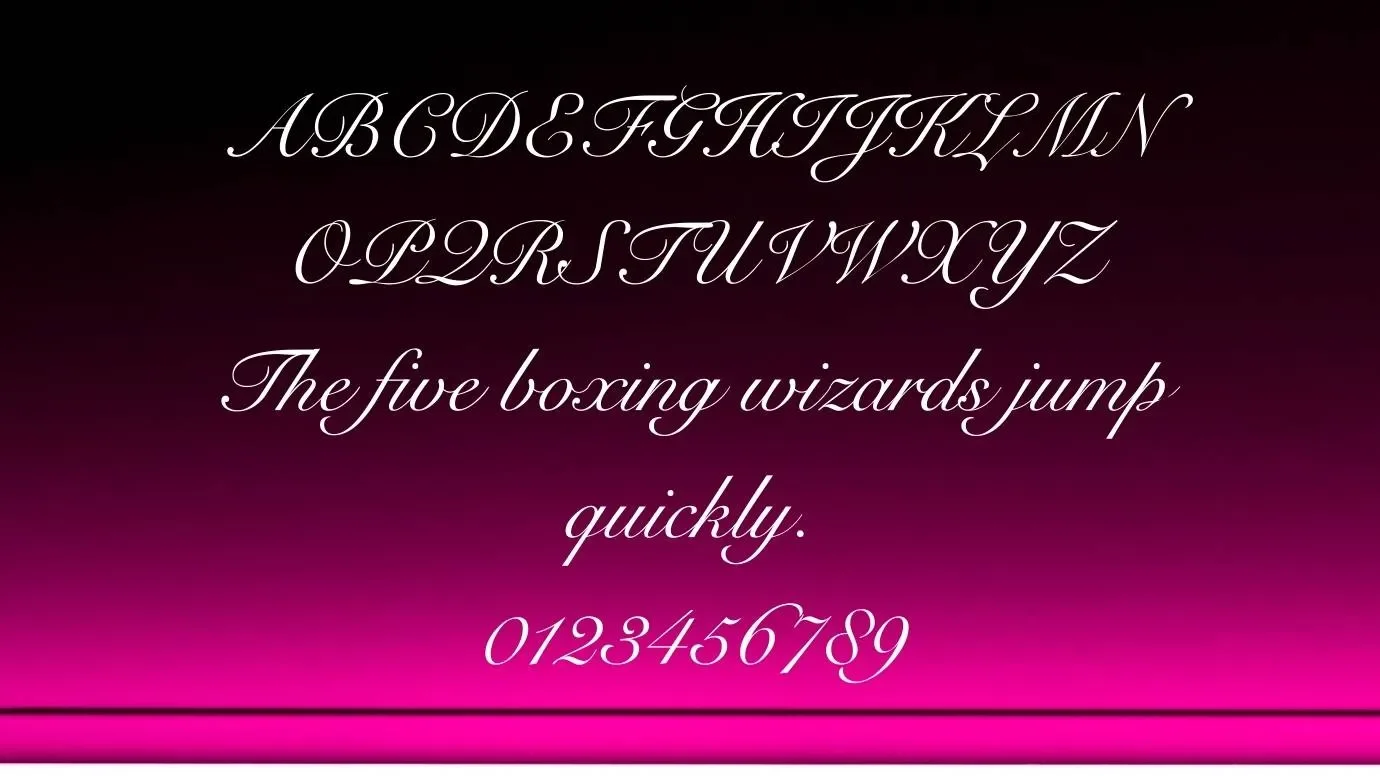
Introducing Roundhand Font! It is a script calligraphy typeface that was developed for the first time by two famous typographic designers known as William Benson and John Ayres. It has two styles that are regular and bold. This typeface was published in 1660 in England. The bold style of this font is perfect to use for bold calligraphic designs.
It contains more than 237 glyphs along with 1024 units per em. Roundhand Font has more than 230 defined characters including punctuation marks, lowercase letters, and currency symbols. Adelicia Font is the most alternative font of this typeface.
The stylistic characters of this font are perfect for swashes, attractive texture, readable text, and a glimpse. This typeface gives an amazing and outstanding look to your private and commercial designs. The free generator tool facility of this font is suitable for making text graphics and converting your easy text into modern designs.
Reason to Use Roundhand Font
In this section, we discuss all the usage of this font. You can use this font for website designing, animated and official logos designing, and branding logos designing purposes. Many typeface designers use Roundhand Font for creating attractive graphics and a unique look to their designs.
You can utilize this font for product packaging, blog images, postcard designs, and flyers. It is also suitable for use in advertisement and different titling purposes. Many designers utilize this typeface for poster designs, banner designs, and emblems design purposes.
Roundhand Font Family (Includes Total 02 Types)
- Roundhand-Regular
- Roundhand Bold
What type of font is Roundhand Font?
This is a calligraphy typeface and Rounhand Font was developed for the first time by two famous designers known as William Benson and John Ayres.
What fonts are similar to Roundhand Font?
Many scripts and calligraphy fonts are alternatives to this fantastic typeface but Snell Roundhand Font and Bill Smith Font are the most alternatives to this typeface.